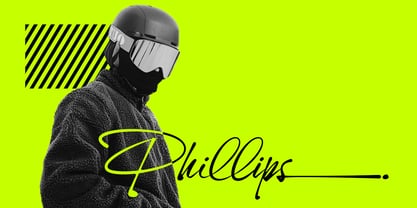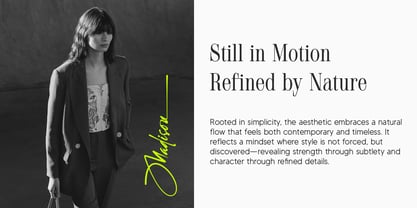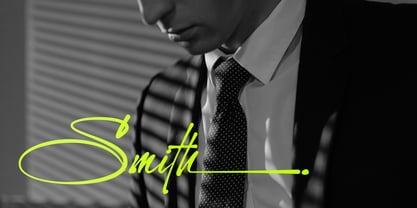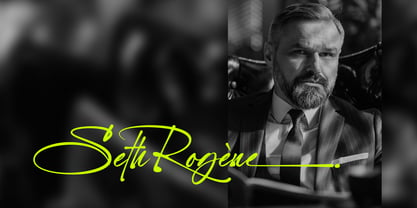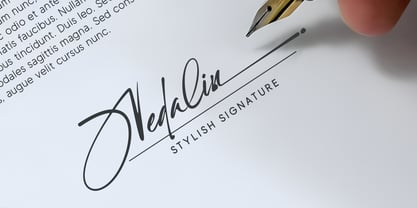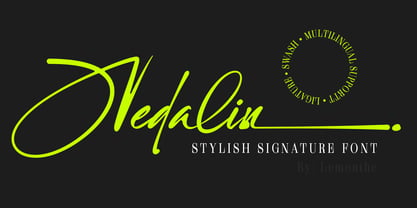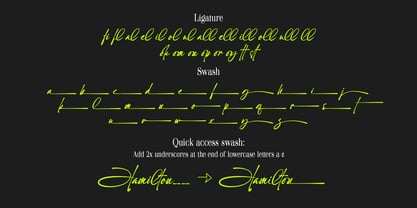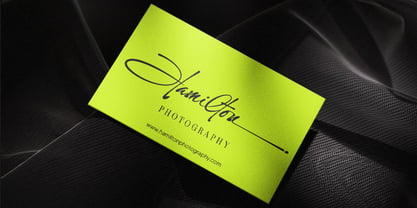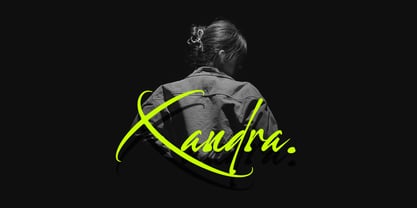
Nedalin
by Lemonthe
The Nedalin Font Family was designed by Dwi Ahidian and published by Lemonthe. Nedalin contains 1 styles. More about this family
Nedalin is a signature-style font with a modern handwritten look that features a bold, expressive, and natural character. Each stroke flows smoothly like an authentic signature, creating an organic and stylish feel. Nedalin works well for logos, branding, packaging, headlines, social media, and many creative projects that need an elegant yet casual touch. With swash and ligature features included, this font offers designers flexibility to create strong, unique, and elegant visual identities.